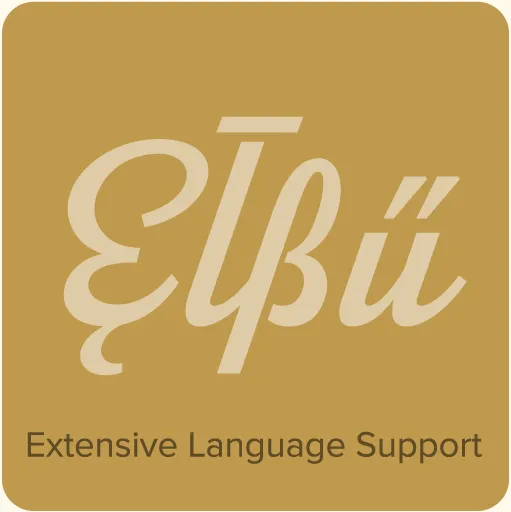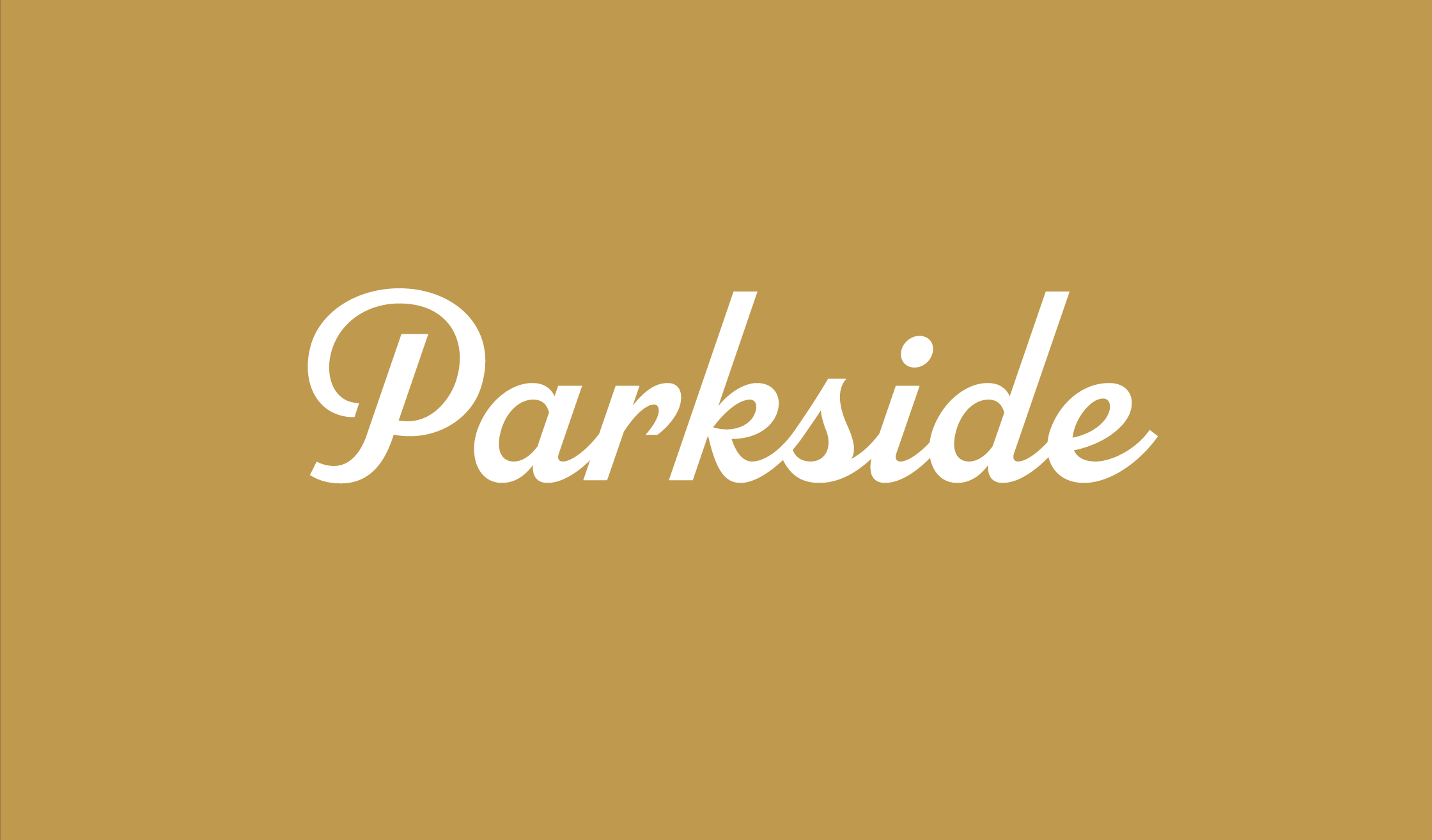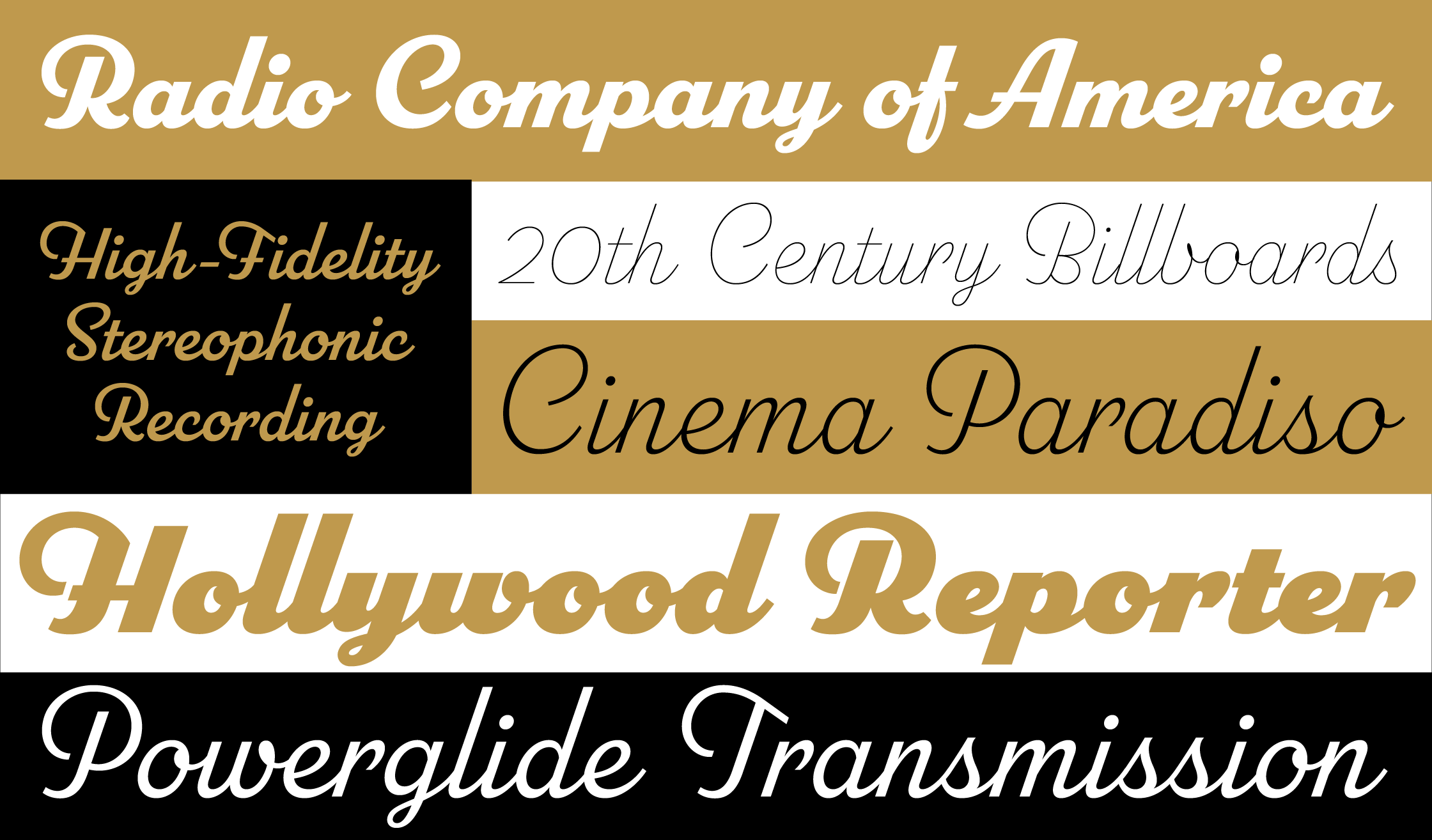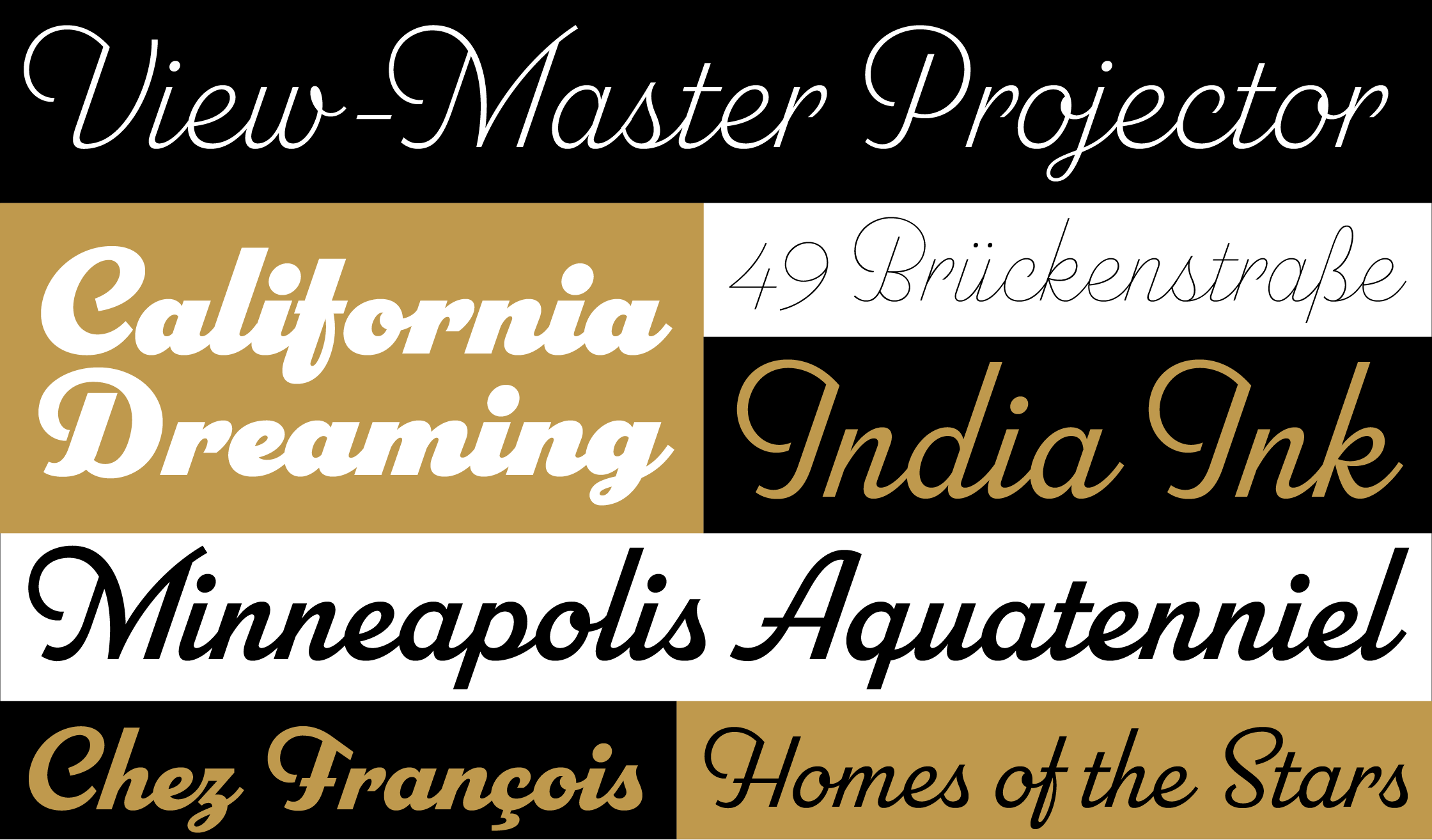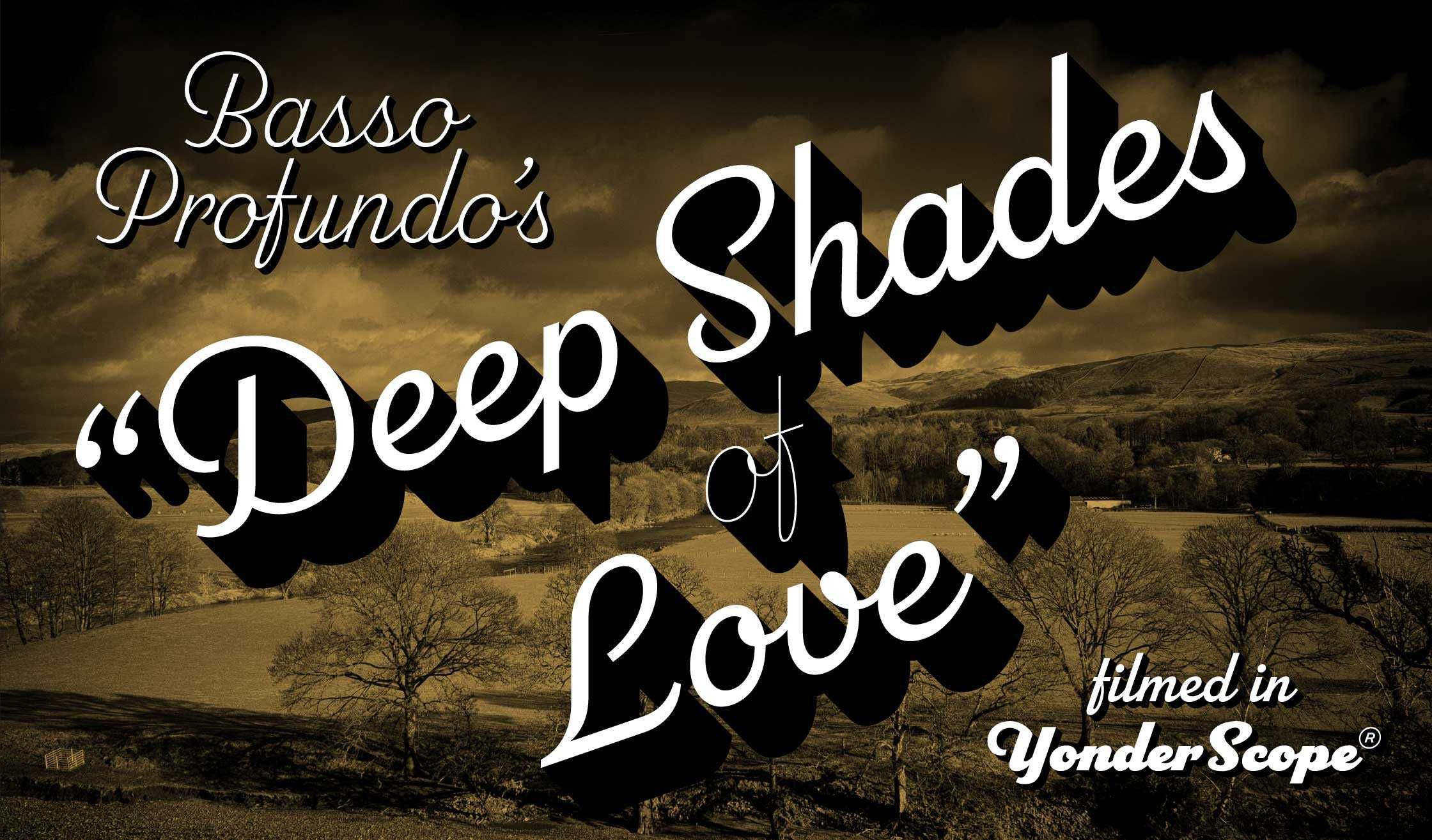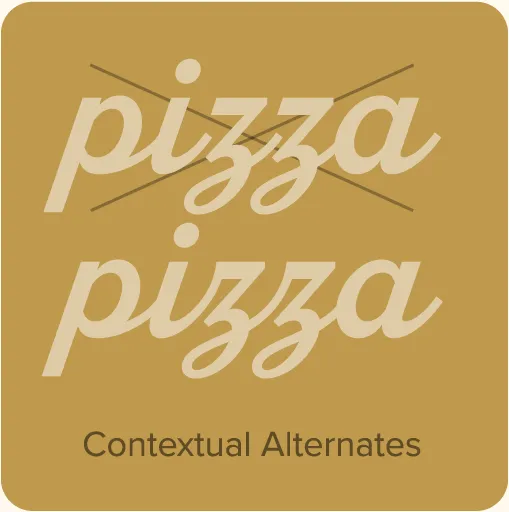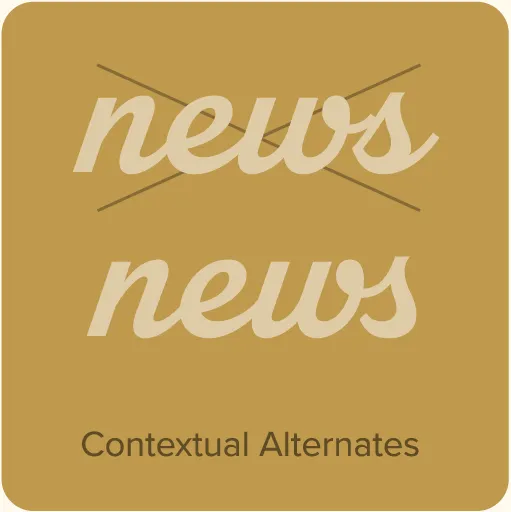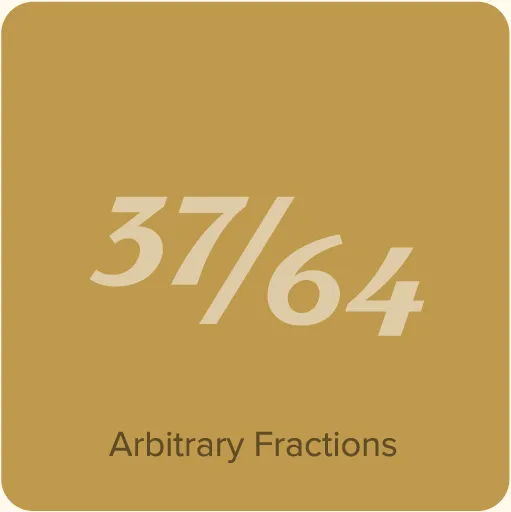
Parkside (2018) is a script typeface inspired by typefaces and lettering of the 1930s and 1940s. Unlike metal typefaces from that era, it takes advantage of modern digital typography, where letters may overlap and automatically change shape to better flow with surrounding letters. There are six weights (Hairlline, Thin, Light, Regular, Bold, and Black). Parkside has extensive language support, covering most Latin-based writing systems. Parkside uses OpenType magic to automatically select letter variations that seamlessly connect to the letters coming before and after.
- Six weights: Hairline, Thin, Light, Regular, Bold, and Black.
- Advanced OpenType magic to automatically use the appropriate letter shapes as you type based on the connecting strokes of adjacent letters.*
- Arbitrary fractions (OpenType Fraction feature).*
- Superscript and subscript.*
- Extended language support for most Latin-based Western and Central European languages.